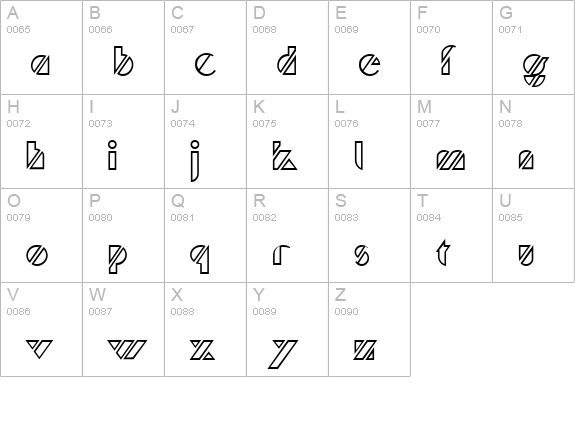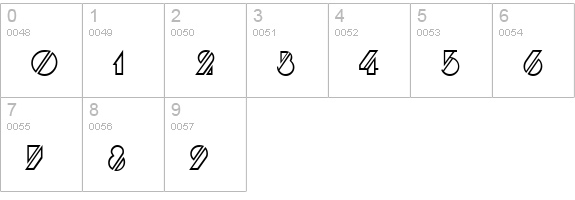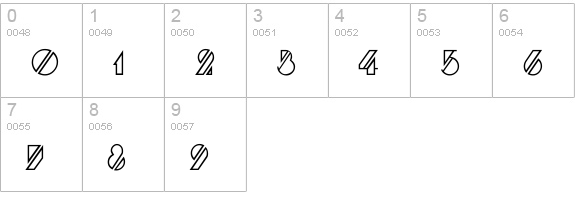
Cane Hollow Font Details
Cane Hollow is a stunning and elegant font that combines classic charm with a modern twist. This versatile typeface is perfect for a wide range of design projects, from invitations to branding to social media graphics. With its unique and eye-catching appeal, Cane Hollow is sure to make your text stand out. What's even better is that Cane Hollow is completely free to download at FontsMarket.com. This means you can add this beautiful font to your collection without any cost. Don't miss out on the opportunity to enhance your designs with the timeless beauty of Cane Hollow. Download it today and start creating stunning visuals that will captivate your audience.